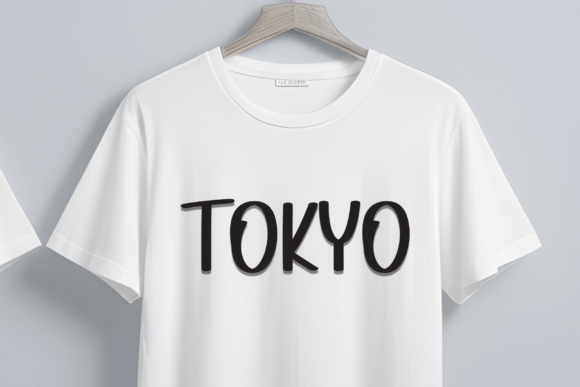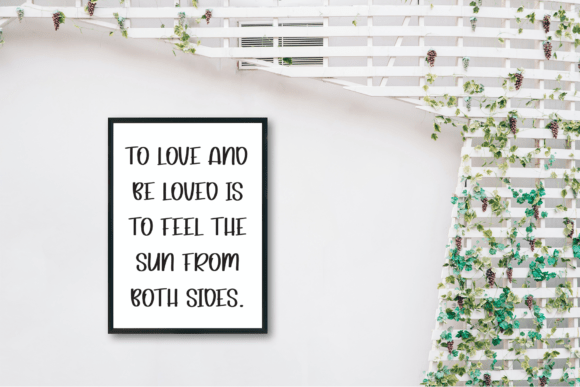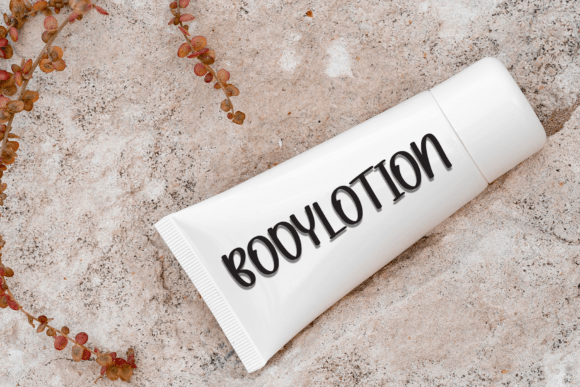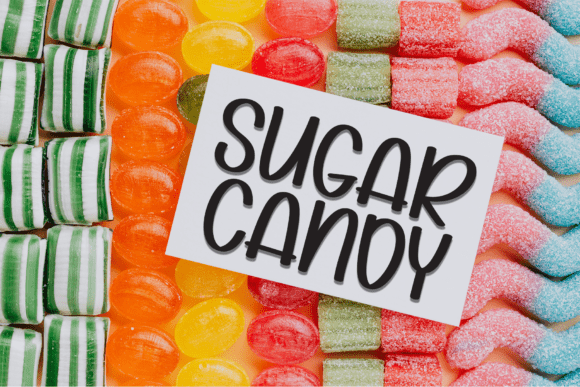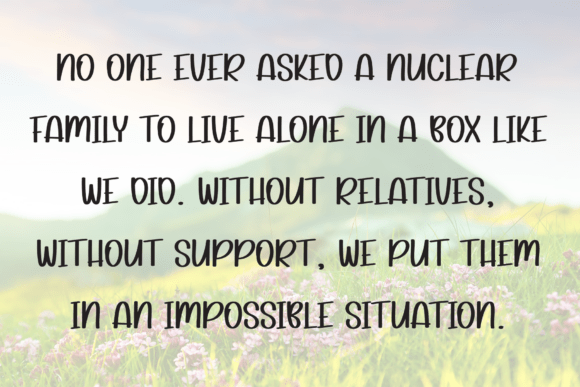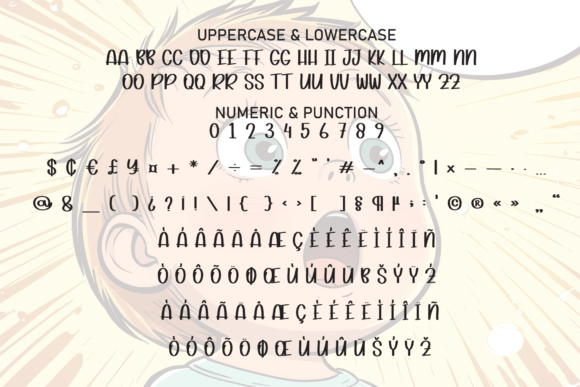
Introducing a Fresh Face: Baby Comic Font
Have you ever stared at a blank design canvas, trying to conjure up the perfect font to capture your audience’s attention? We’ve all been there. For designers, finding the right font can be the difference between a project that truly resonates and one that falls flat. That’s why we’re excited to introduce you to Baby Comic Font – a new, casual display font designed to bring warmth and clarity to your projects.
Baby Comic Font is all about striking the perfect balance between style and readability. Its clean structure and approachable style make it perfect for branding, headlines, and everyday designs. The balanced letterforms offer a charm that’s hard to resist, making every message feel genuine and inviting. With Baby Comic Font, you can elevate your designs and connect with your audience on a deeper level.
Baby Comic Font Key Features
- Font Style: A playful, handwritten font designed to resemble a child’s drawing.
- Unique Characteristics: The font’s irregularities and imperfections give it a unique, hand-drawn feel that is perfect for adding a touch of whimsy to designs.
Baby Comic Font Review
Overall, I’d say Baby Comic Font is a cute and playful font that’s perfect for projects where you want to add a touch of whimsy and innocence. Here’s what I like about it:
- ✨ The font’s rounded edges and childlike feel make it ideal for children’s books, nursery decorations, or any project that requires a lighthearted tone.
- ✨ The font is highly customizable, with many different styles and weights available, making it easy to find the perfect look for your project.
- ✨ The font is also highly legible, even at small sizes, making it perfect for use in smaller text or for creating posters and flyers.
- ⚠️ The font can feel a bit too childish for some projects, and may not be suitable for more formal or professional work.
- ⚠️ The font’s rounded edges can also make it difficult to read in certain contexts, such as at very small sizes or in low-contrast environments.
Overall, I think Baby Comic Font is a great choice for projects where you want to add a touch of playfulness and innocence. Just be sure to consider the potential limitations and use it wisely.
Tips for Getting the Most Out of Baby Comic Font
Use the Baby Comic Font for playful and whimsical designs, such as children’s books, greeting cards, and party invitations.
Combine the font with bold lines, bright colors, and fun illustrations to create eye-catching designs.
Experiment with different font sizes and styles to add visual interest to your designs.
Use the Baby Comic Font for:
Children’s books and educational materials.
Greeting cards and party invitations.
Playful social media graphics and advertisements.
Great Vibes is a modern script font that offers a playful and elegant feel. It is suitable for use in titles, headings, and body text where a friendly and approachable tone is desired. Great Vibes is more versatile and sophisticated compared to Baby Comic Font, making it ideal for a wider range of design projects.
Lobster is a casual, cursive font that is reminiscent of handwriting. It is best used for titles, headings, and short paragraphs where a relaxed and informal tone is needed. While Lobster shares some similarities with Baby Comic Font in its casual nature, it has a more mature and refined feel.
Coming Soon
Coming Soon is a bold, handwritten font that is perfect for use in titles, headings, and short paragraphs where a sense of urgency or excitement is desired. Coming Soon is more dramatic and attention-grabbing compared to Baby Comic Font, making it ideal for marketing materials and promotional campaigns.
Pacifico is a beautiful, elegant script font that is suitable for use in titles, headings, and body text where a sophisticated and refined tone is desired. Pacifico is more polished and sophisticated compared to Baby Comic Font, making it ideal for use in high-end design projects and branding materials.
Yes, the Baby Comic Font is highly customizable. You can adjust font size, style, and color to suit your project requirements. Additionally, you can use font editors or software to modify the font’s design and create custom variations.